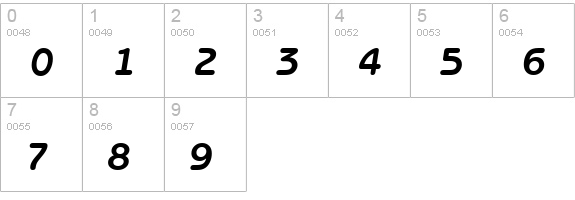
Benjamin-Gothic-BoldItalic Font Details
The Benjamin Gothic Bold Italic font is a striking and modern typeface that exudes a sense of sophistication and style. With its bold and italicized characters, this font is perfect for making a statement in your designs. The sleek and sharp lines of Benjamin Gothic Bold Italic bring a contemporary edge to any project, whether it's for print or digital use. The best part about Benjamin Gothic Bold Italic font is that it is available for free download at FontsMarket.com. This means you can easily access this stylish font and incorporate it into your designs without any cost. Whether you're working on a branding project, a website design, or any other creative endeavor, Benjamin Gothic Bold Italic is sure to make a bold impact. Download it now and add a touch of modern elegance to your projects.